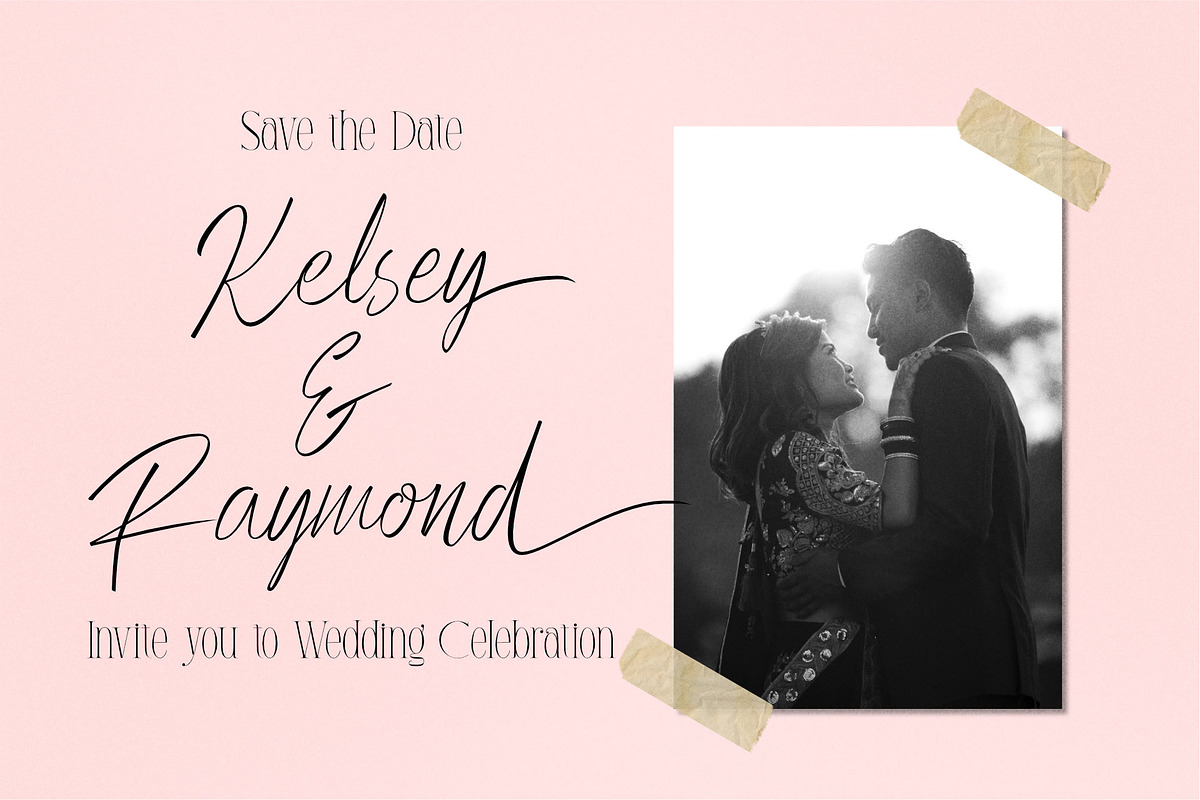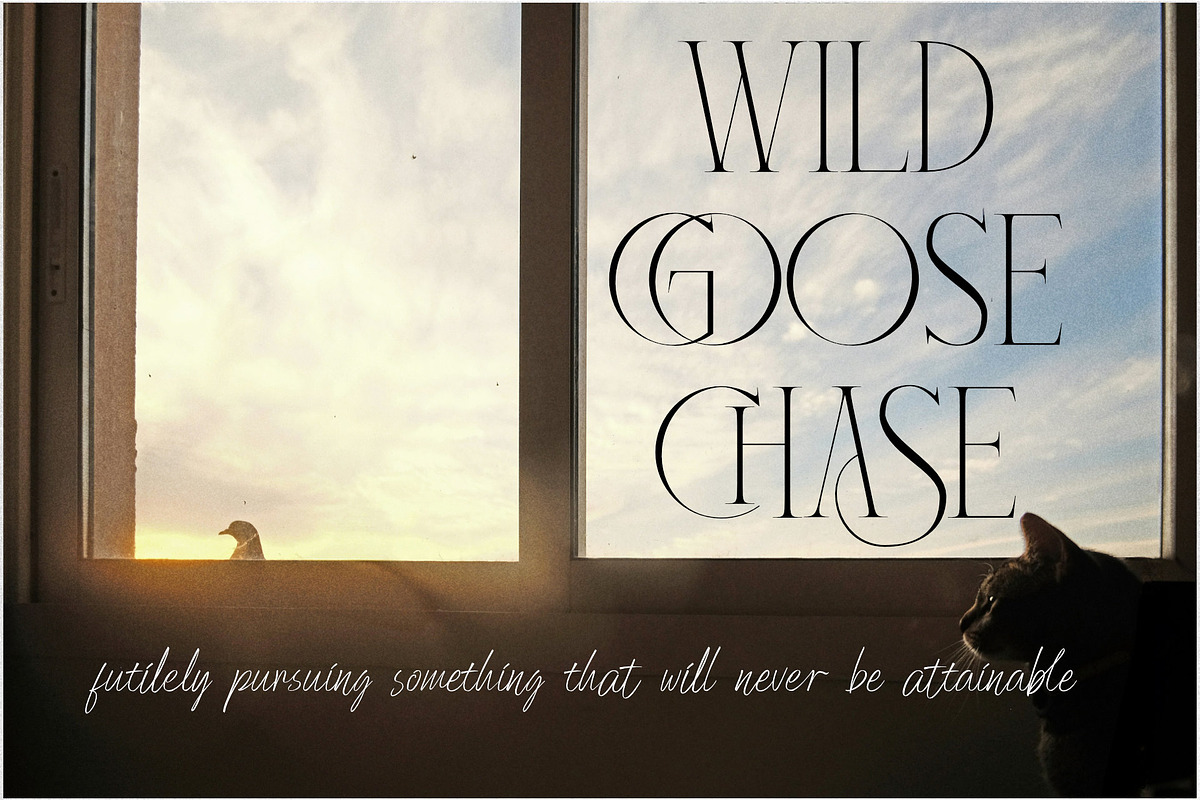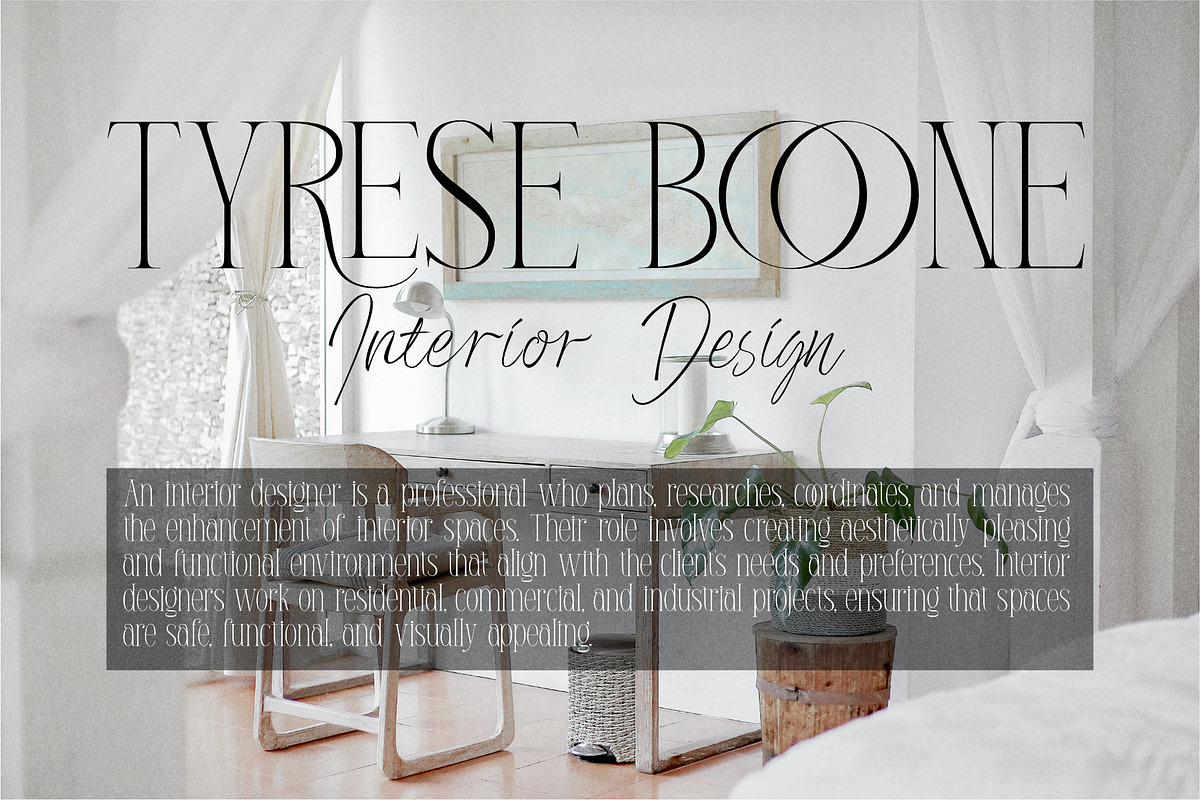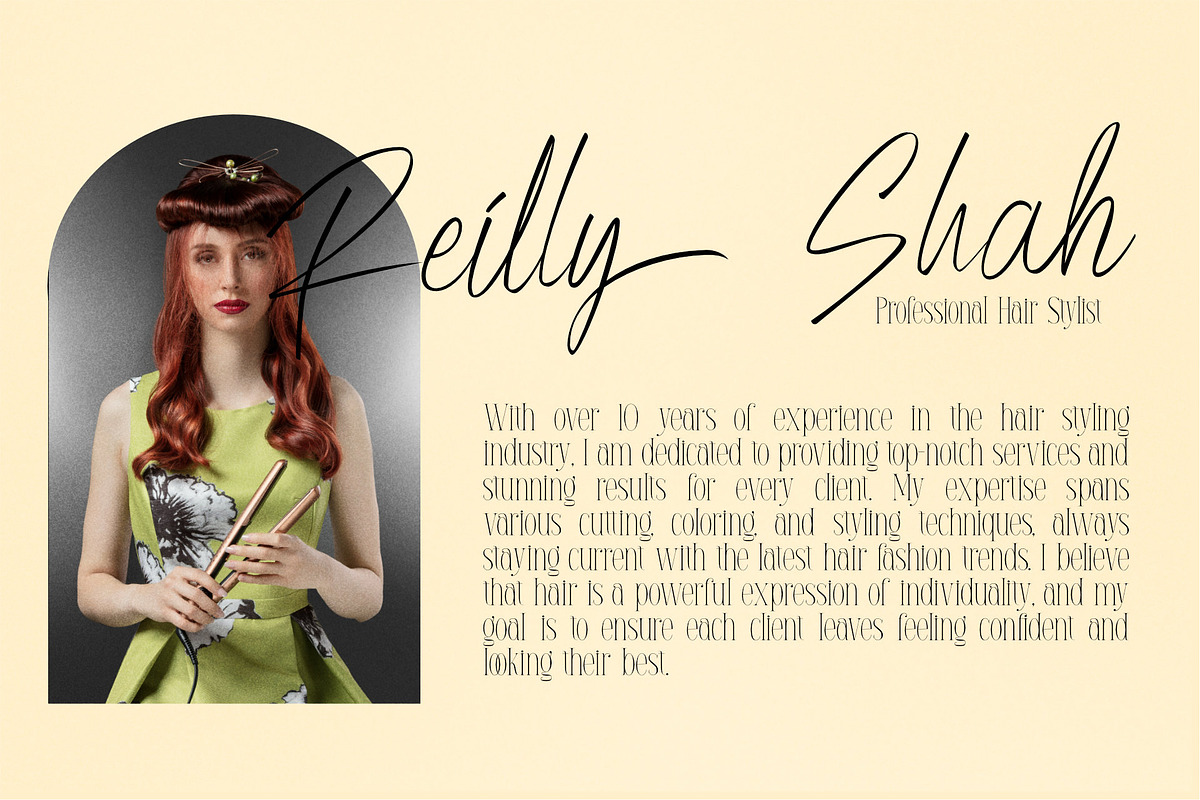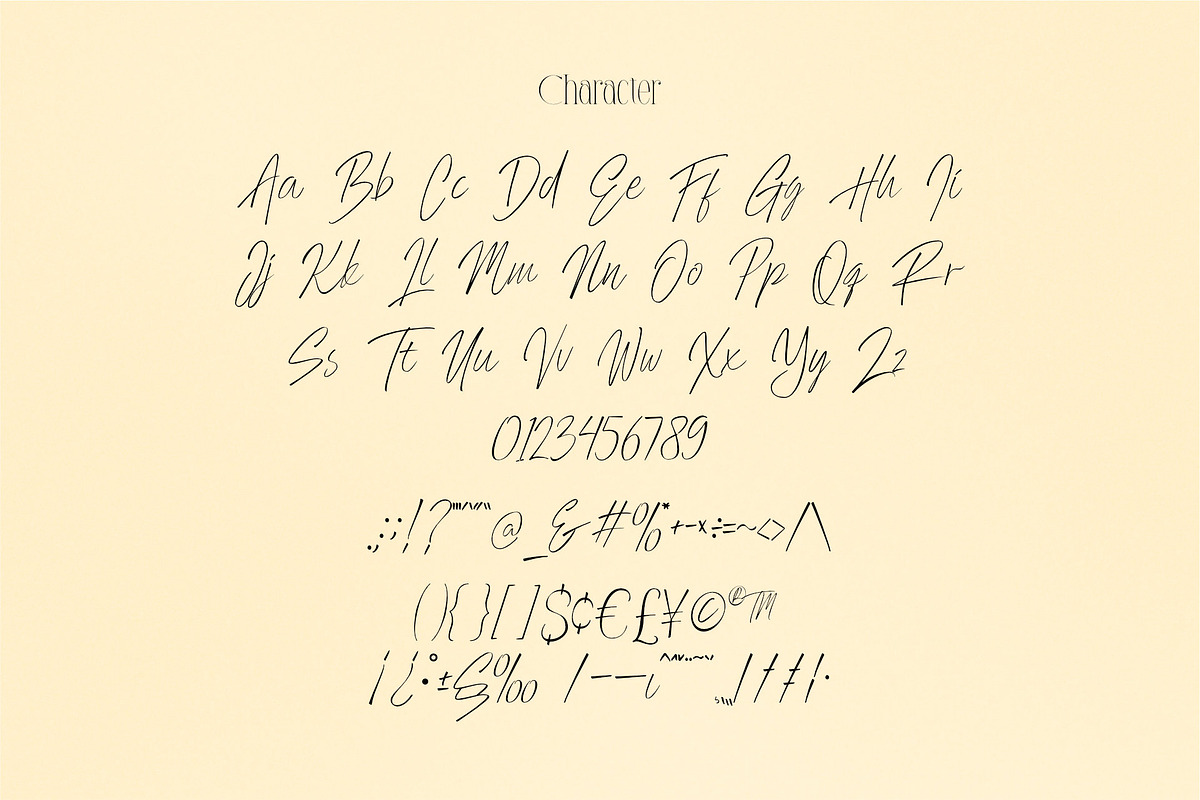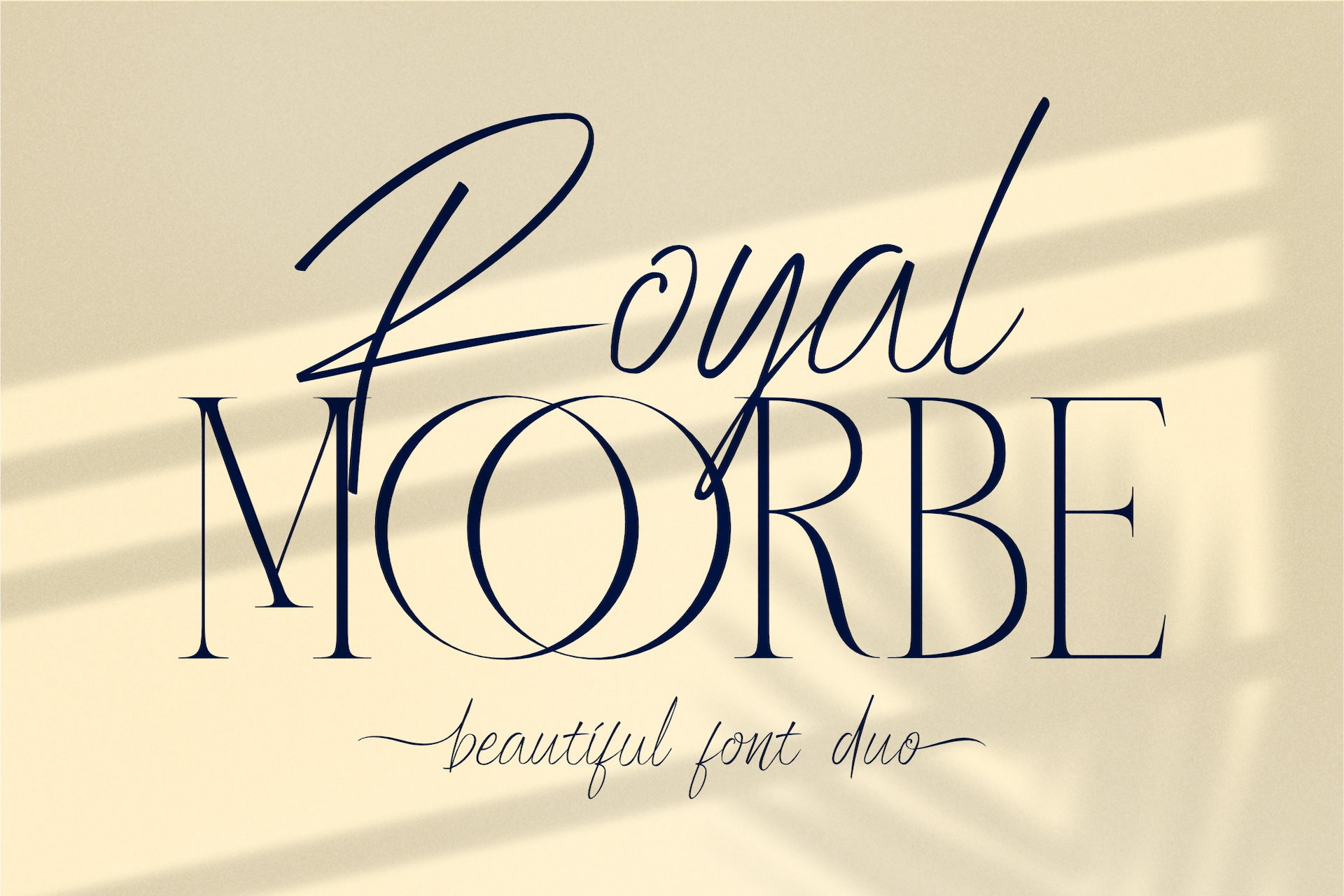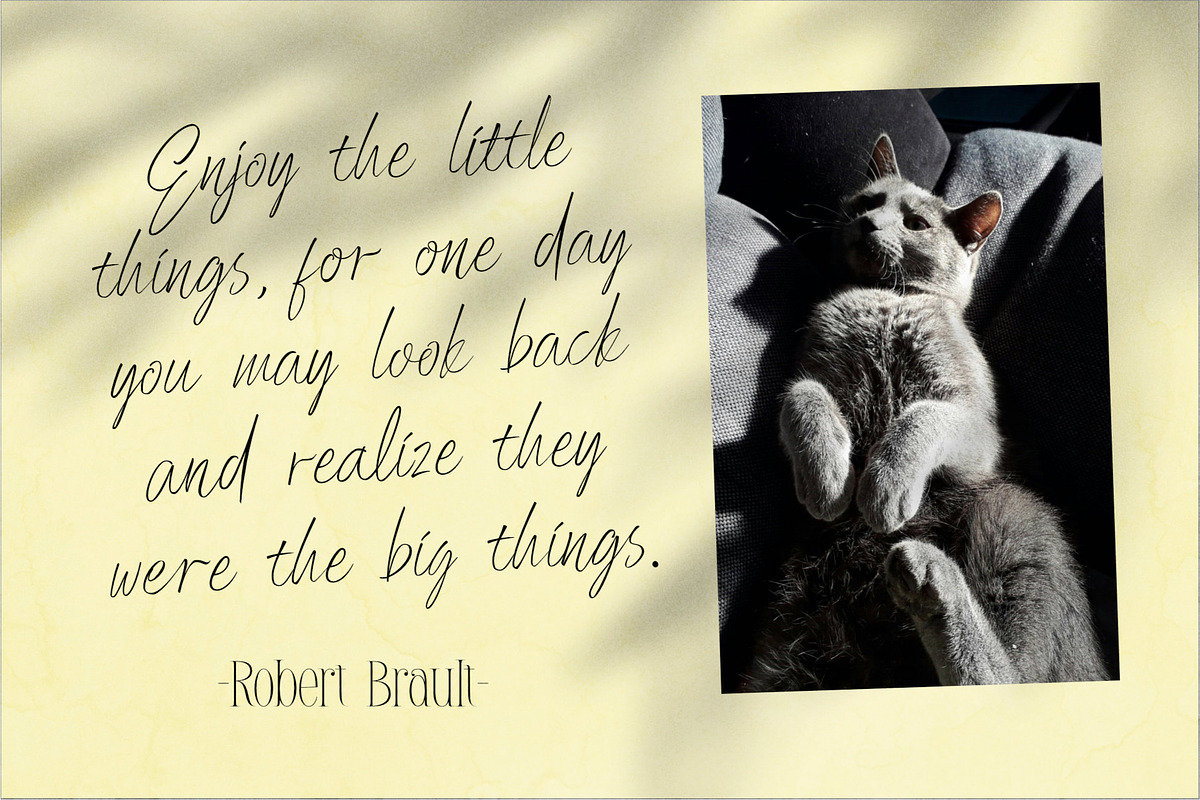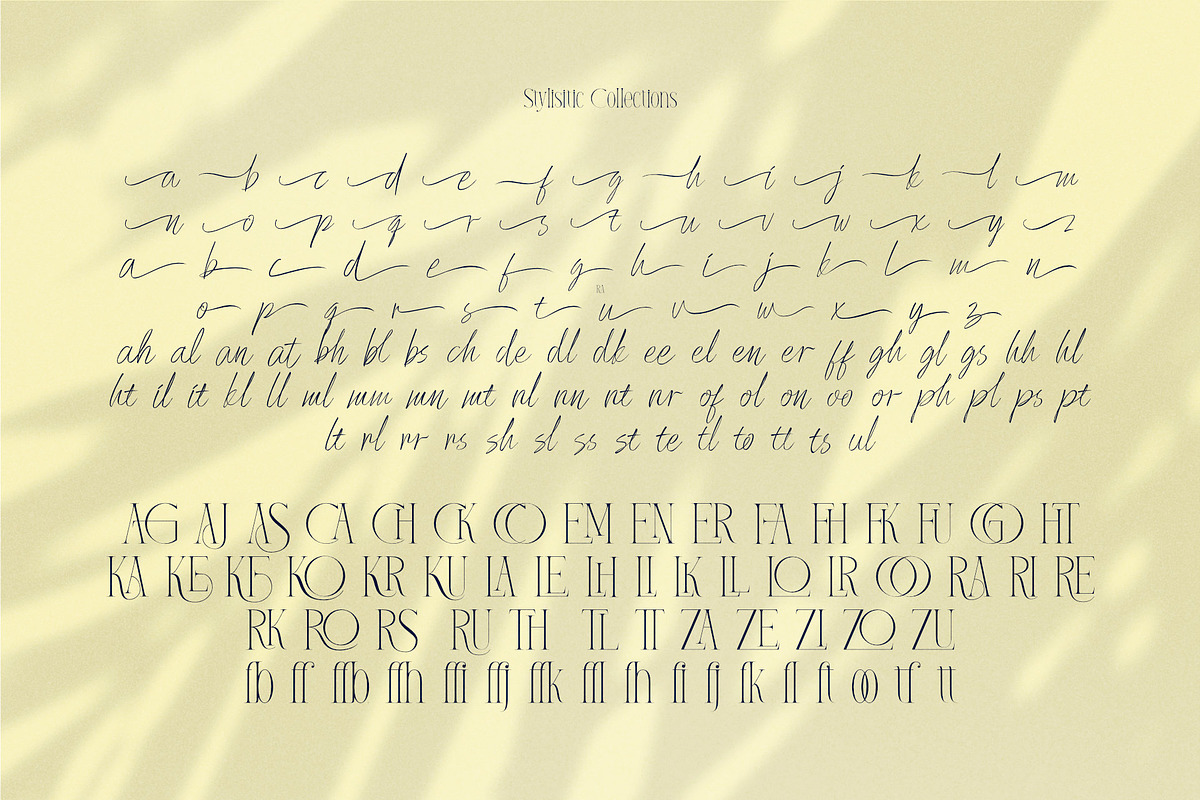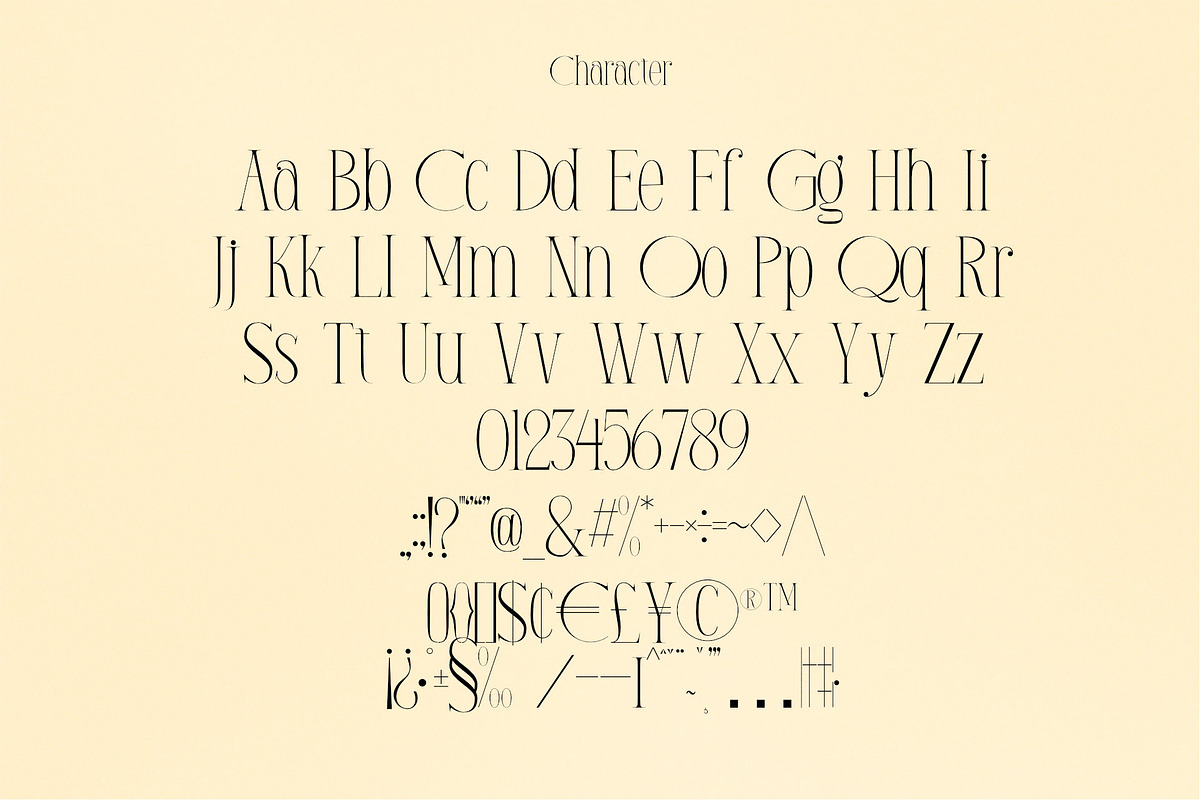
Royal Moorbe - Beautiful Font Duo
Introducing Royal Moorbe, Beautiful Font Duo - a captivating blend of serif and handwritten fonts that exudes modernity and casual elegance. This dynamic duo features high-contrast serifs with stunning alternative flows, perfectly paired with a natural handwritten script. Together, they bring a touch of sophistication and style to any project. Ideal for titles, logos, apparel, invitations, branding, packaging, and advertising, this exquisite font will captivate your audience and make your promotions shine. Let Royal Moorbe, Beautiful Font Duo elevate your designs and make a lasting impression.
Royal Moorbe is built with OpenType features and includes ligatures, alternatives, numbers, punctuation, and also supports other languages.